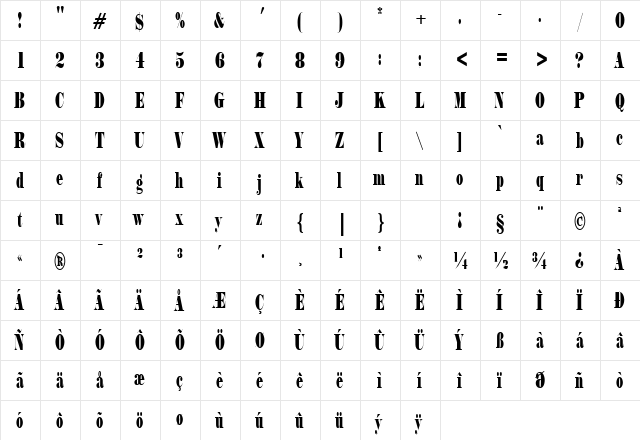
PT Cargo Compressed Normal
Design Context for PT Cargo Compressed Typeface
PT Cargo Compressed is a composed and adaptable typeface that performs quietly and consistently across a wide range of design contexts.